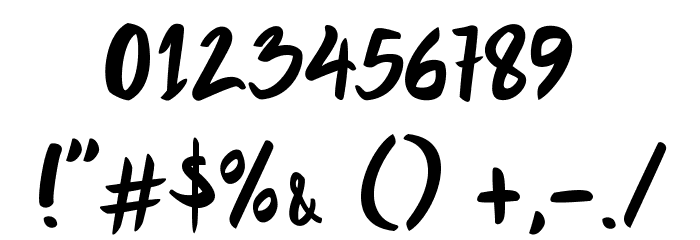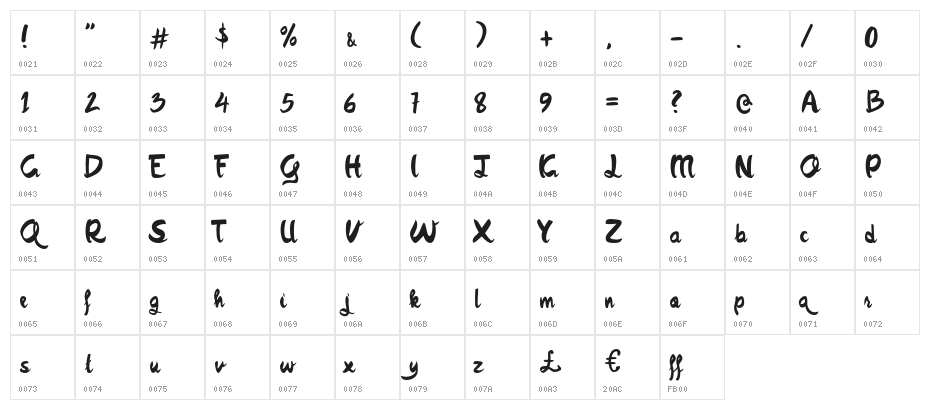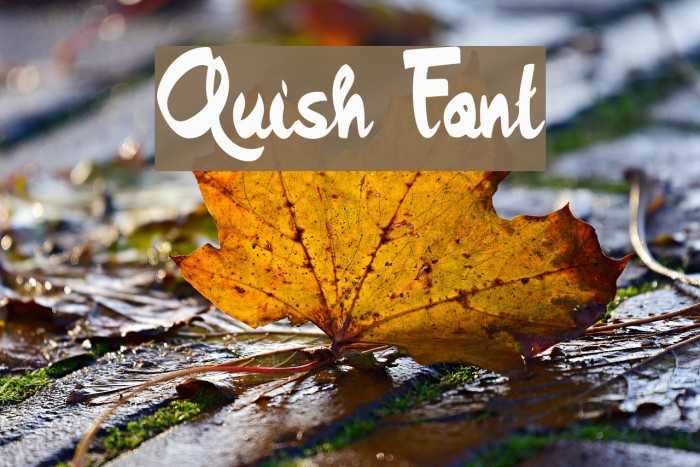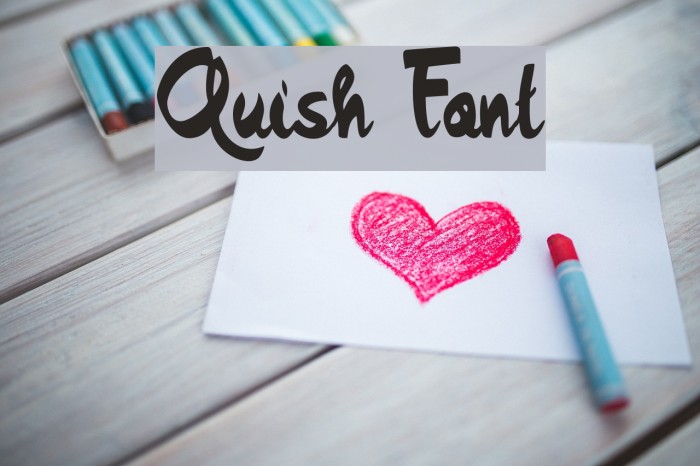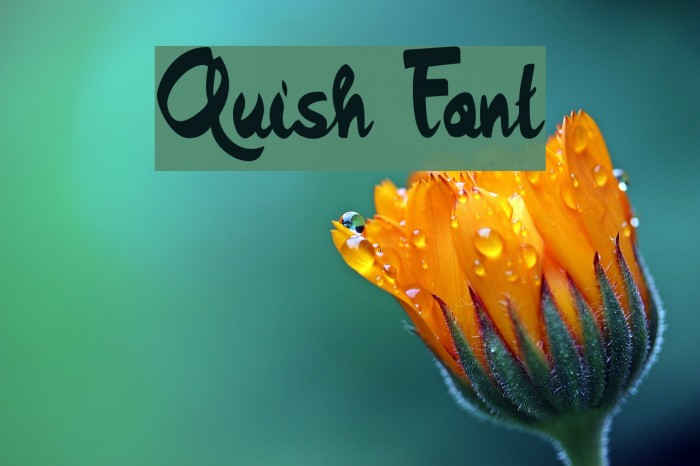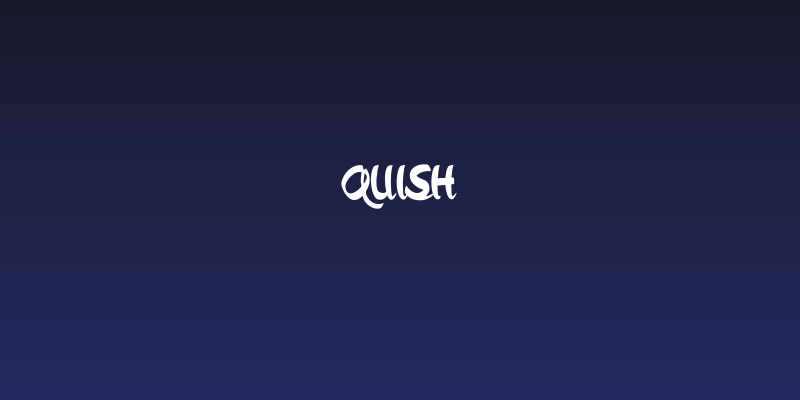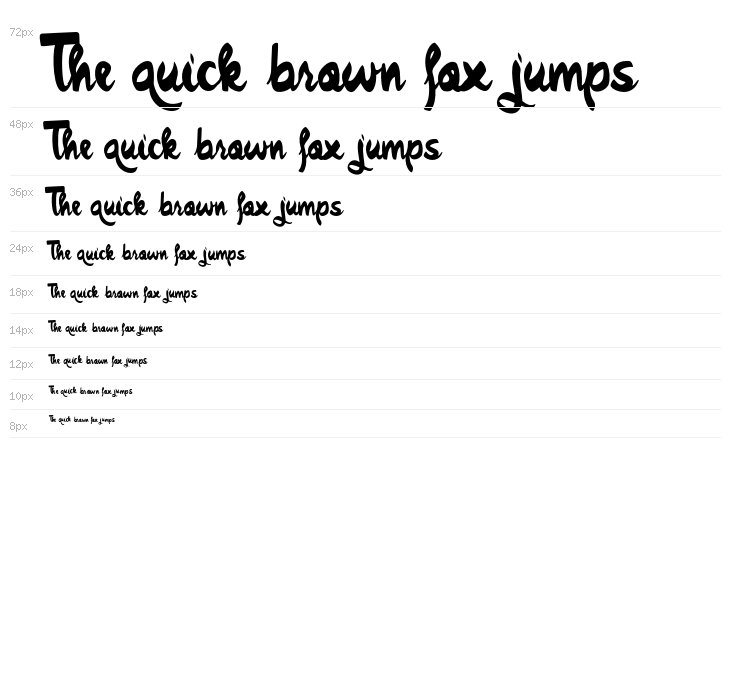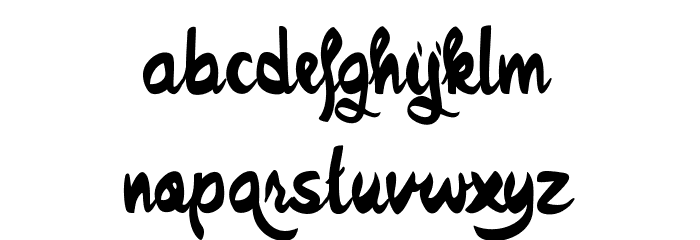
Quish Font
This font features a bold and expressive script style, characterized by its fluid and dynamic strokes. The uppercase letters are bold and slightly slanted, giving a sense of movement and energy. The lowercase letters maintain a consistent flow, with unique loops and curves that add a playful touch. The numbers are equally bold, ensuring they stand out clearly. Special characters are designed to match the overall style, with a consistent thickness and curvature. This font is ideal for projects that require a lively and informal feel, such as invitations, posters, or branding materials.
| Proposed Projects | Ideal for invitations, posters, branding, and any project needing a lively, informal touch. |